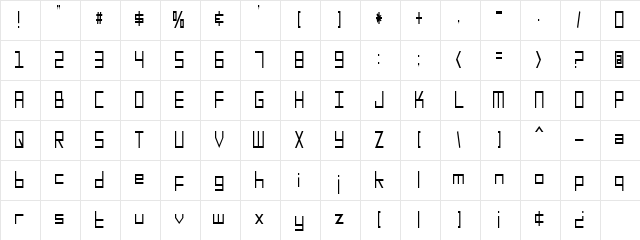
SF Square Head Condensed Regular Free Font
SF Square Head Condensed Regular
SF Square Head Condensed Family
SF Square Head Condensed Regular
Design Context for SF Square Head Condensed
SF Square Head Condensed is a composed and adaptable typeface that performs quietly and consistently across a wide range of design contexts. Its narrow stance lets it pack a punch even in space-constrained designs.